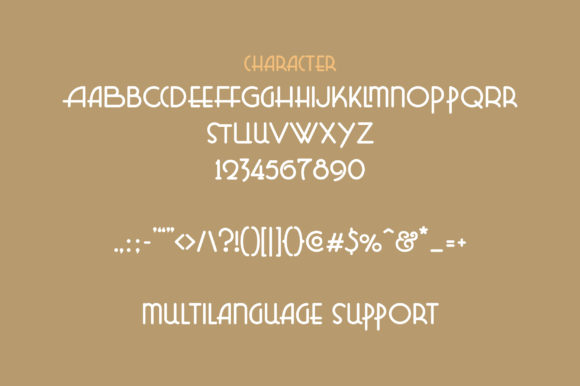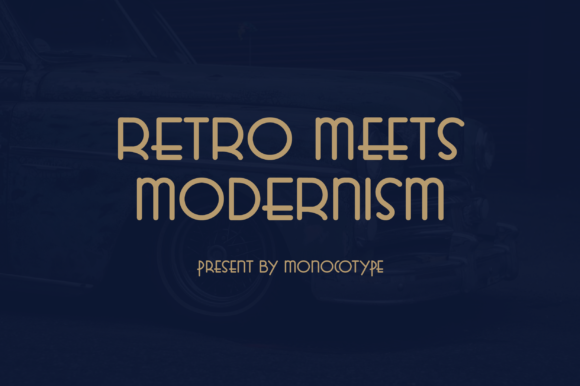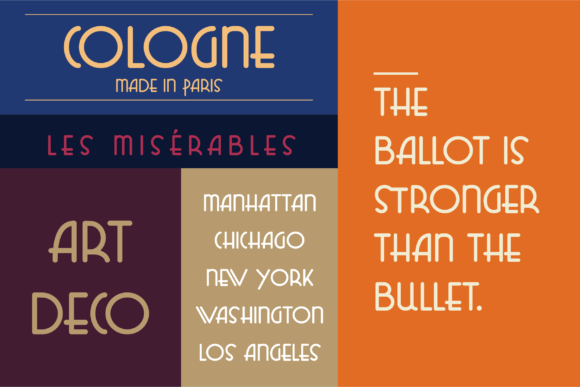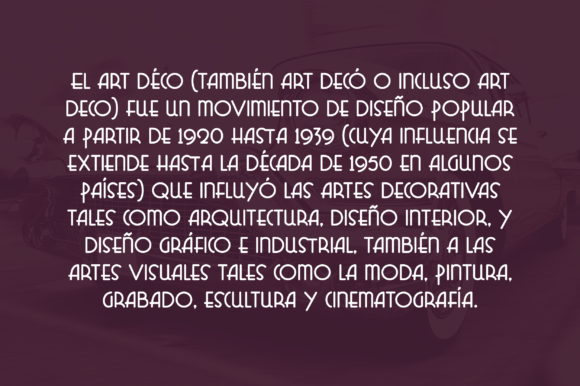
Introduction to Cleveland Font
The Cleveland is a striking sans serif font.
It has an Art Deco flow with a form inspired by the glory of retro style and uniqueness .
Key Features of Cleveland Font
Why Choose Cleveland Font?